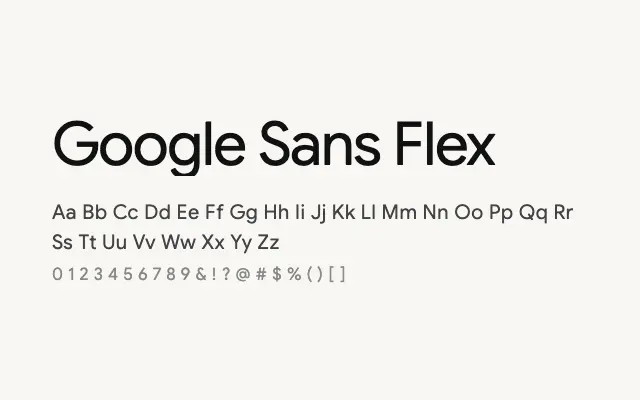
Google Sans Flex
An expansive variable extension of the Google Sans family with a wide weight range and rare indigenous script support.
Google Sans Flex stretches the familiar Google Sans geometry across nine static weights and a variable axis, giving designers fine-grained control over typographic tone. The inclusion of Canadian Aboriginal and Cherokee scripts makes it a thoughtful choice for inclusive digital products. Its clean, neutral character suits interface design, dashboards, and brand communications.
A highly flexible variable font expanding on the Google Sans design language, offering a sweeping nine-weight range and broad script support including Canadian Aboriginal and Cherokee. Its variable nature makes it exceptionally versatile across digital product contexts.